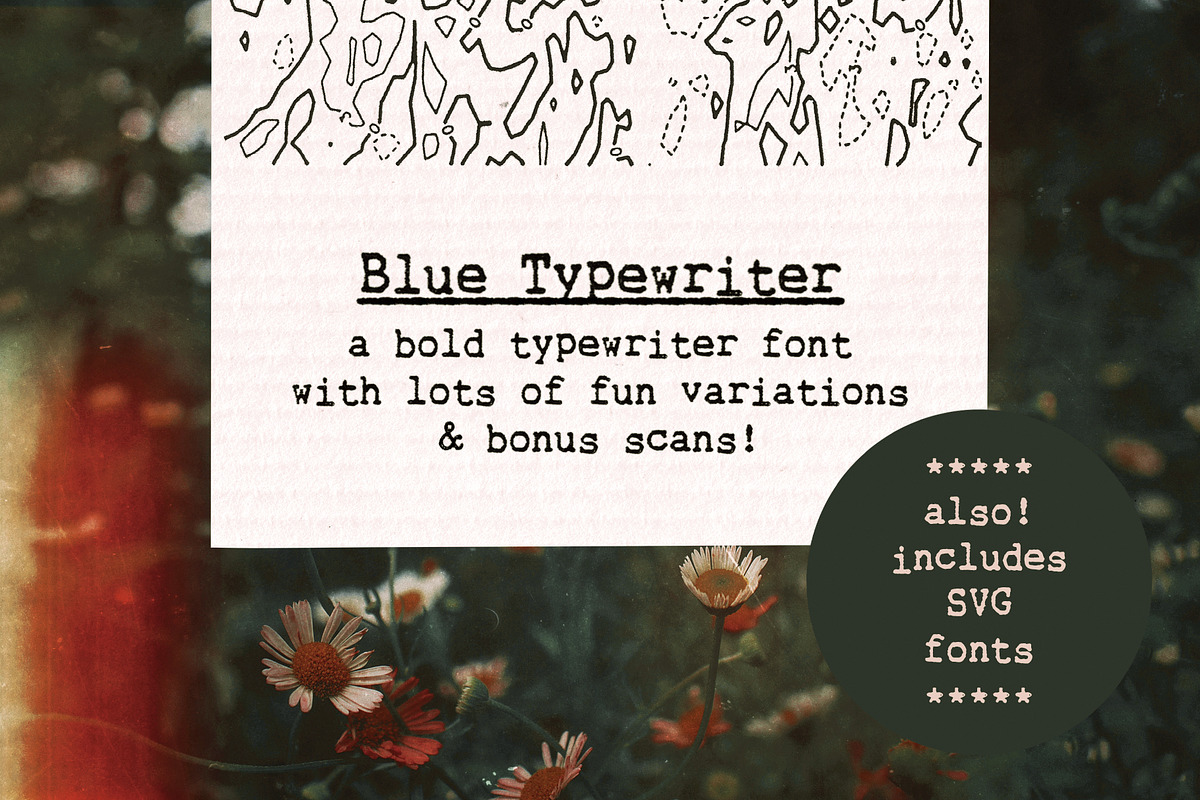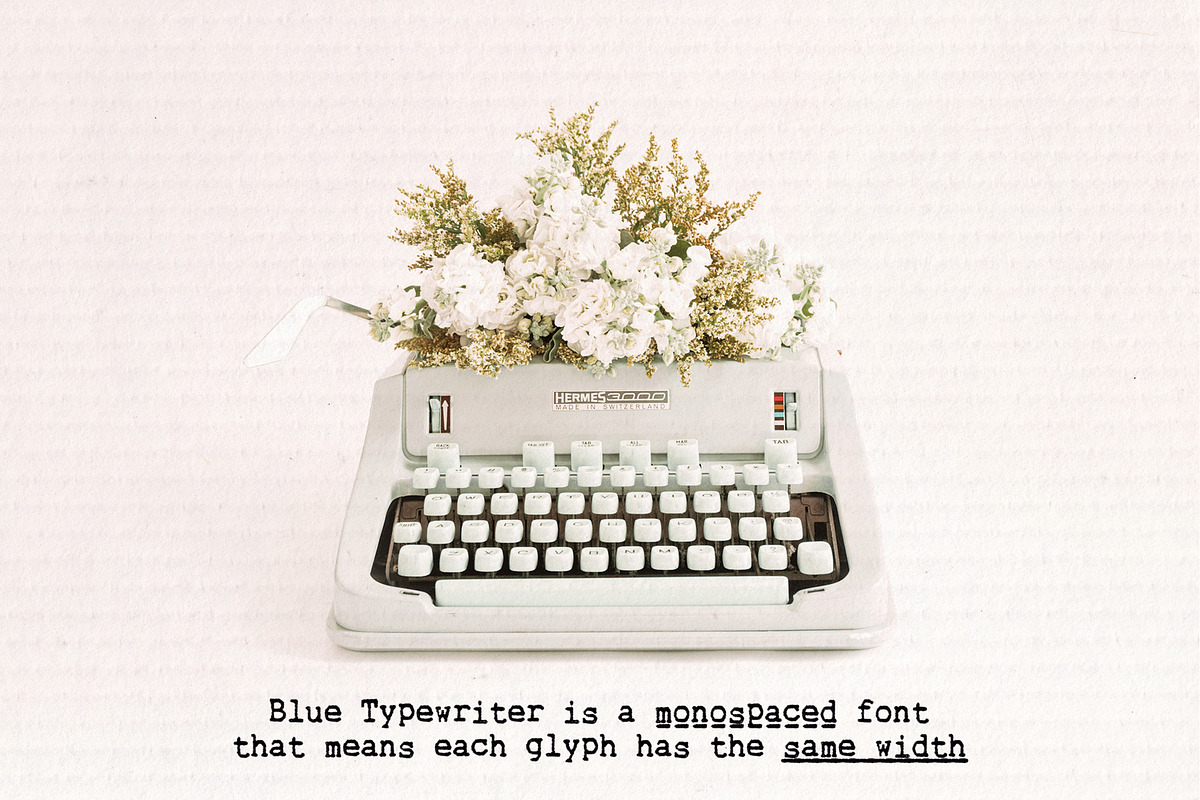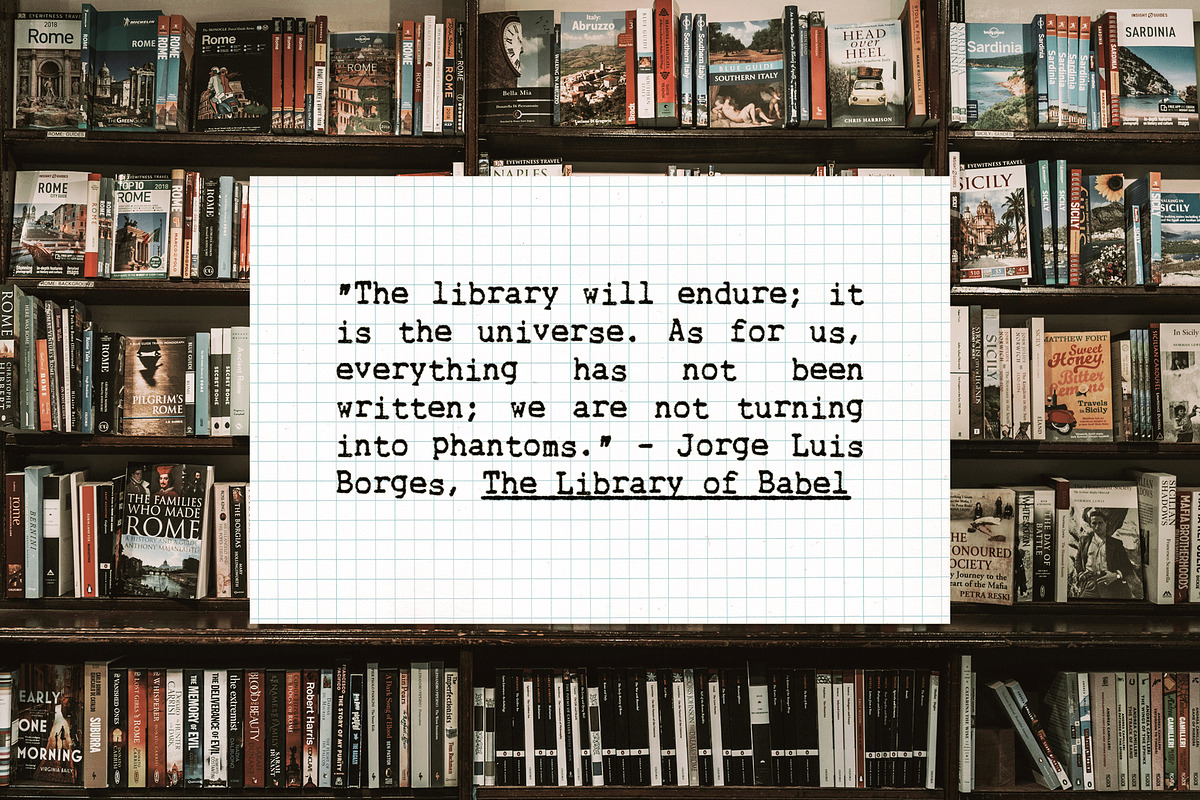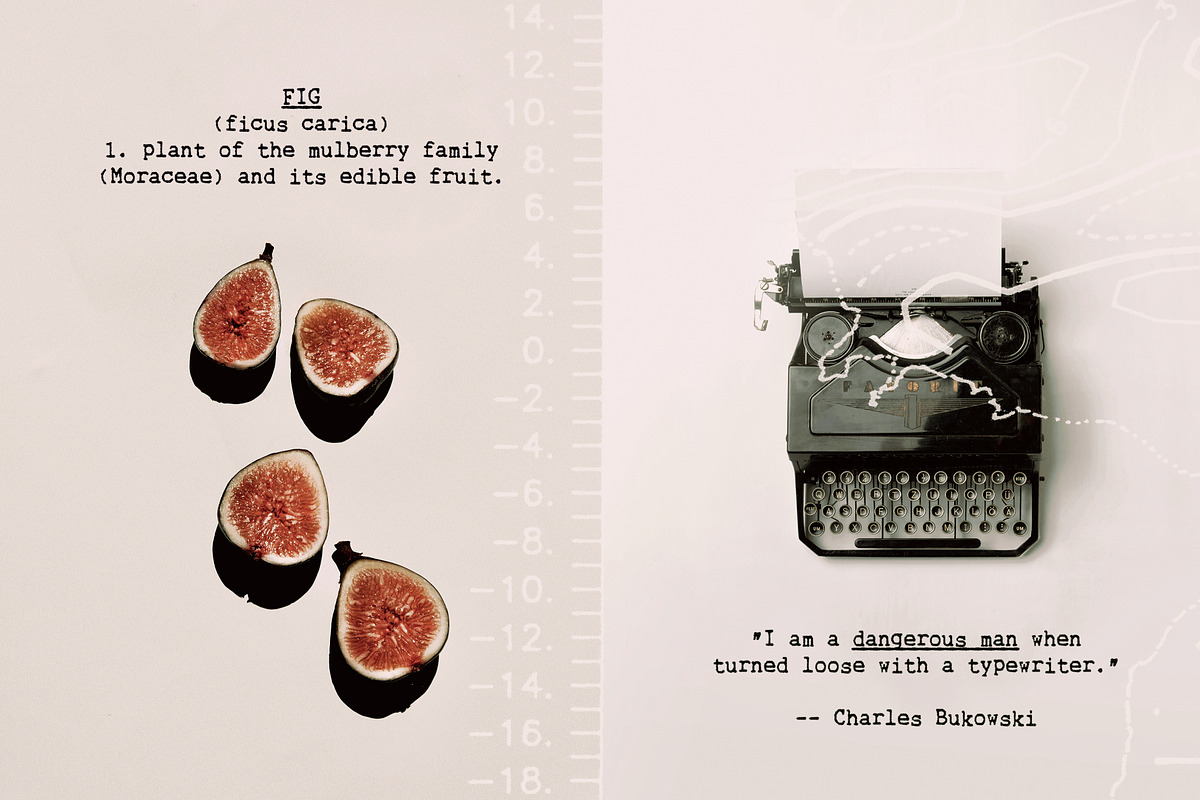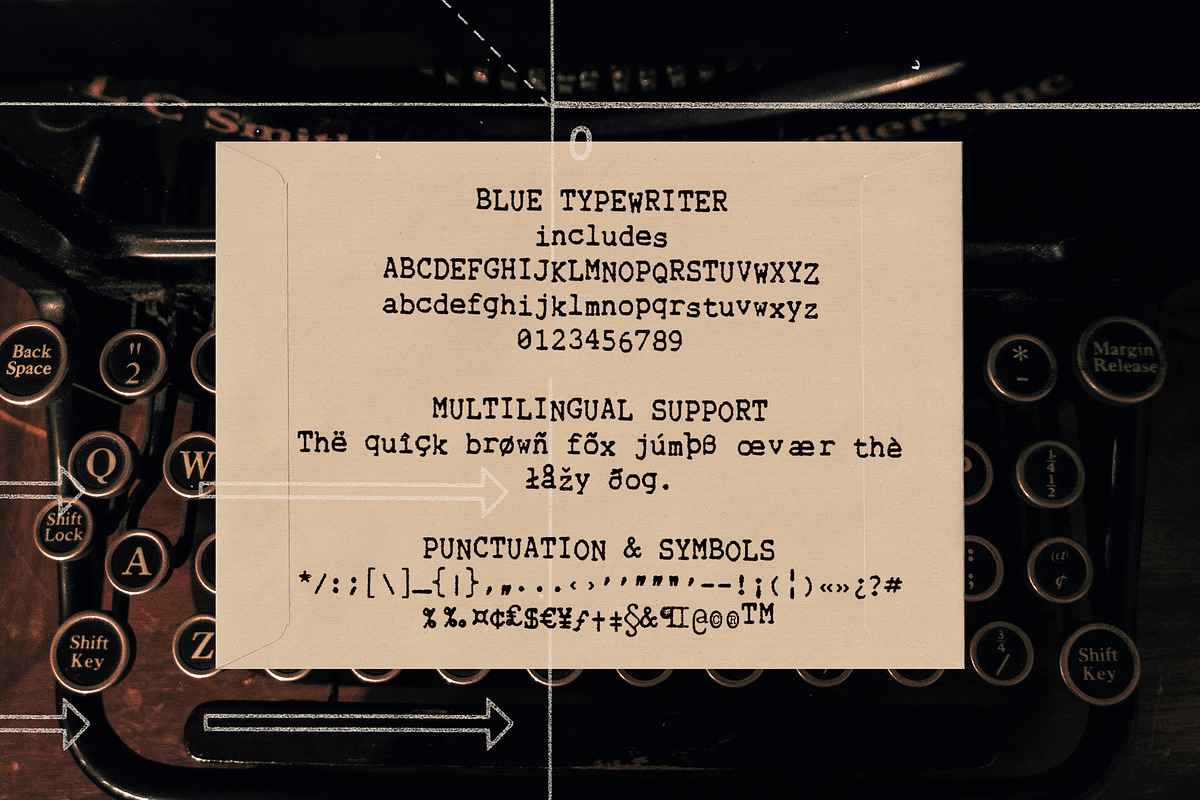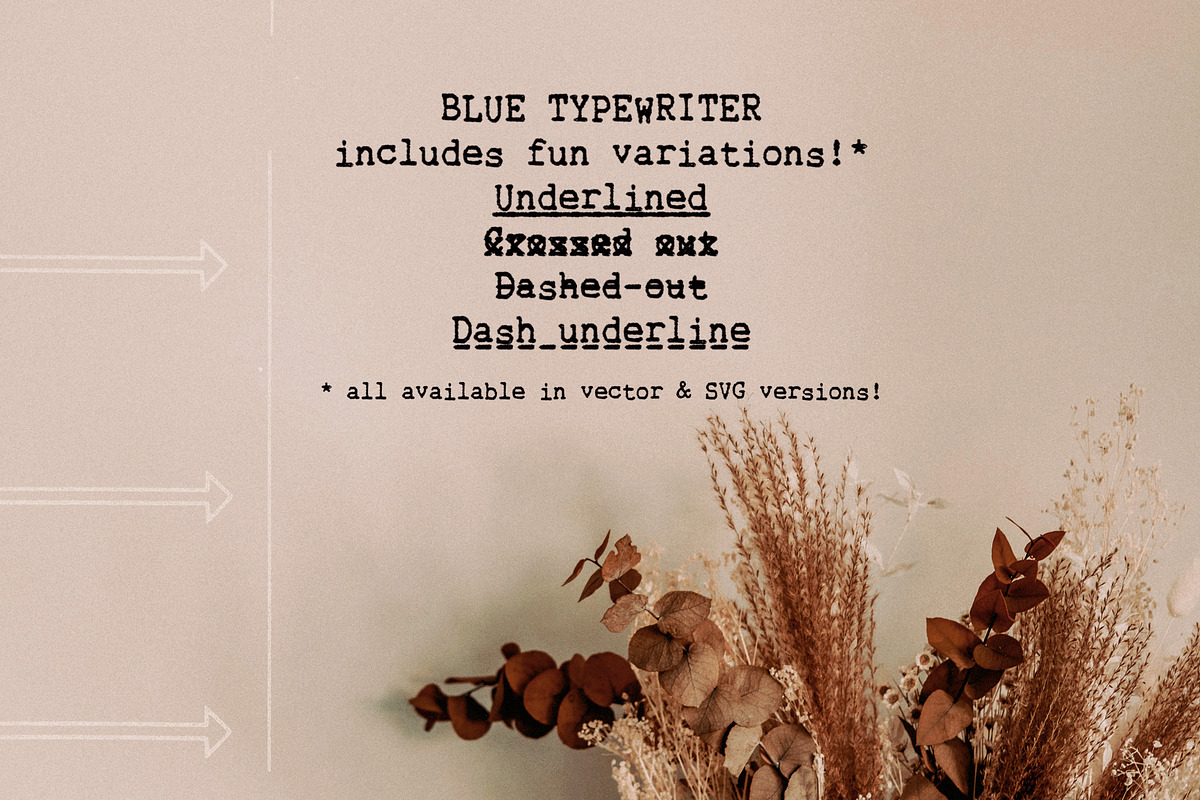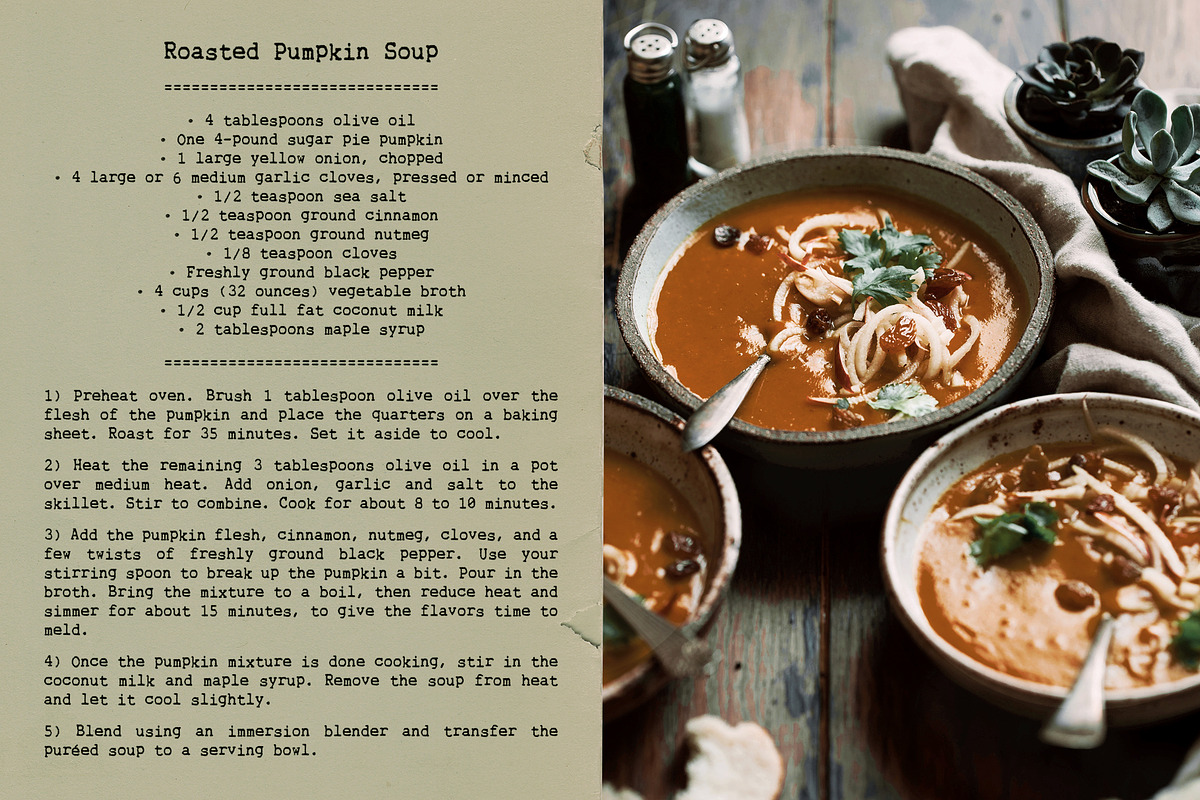
Blue Typewriter SVG font
Blue Typewriter is a bold typewriter font and scans pack (with graphics, text, paper) sampled from old documents, for an authentic vintage look. Use this set in any designs that needs a vintage touch: in long or short texts, in digital collages, branding and packaging, social media posts, logotypes, etc.
- Blue Typewriter font with variations: underlined, dashed, crossed-out and dashed underline, in SVG and vector versions (with the vector versions created separately, so that the two versions include subtle differences)